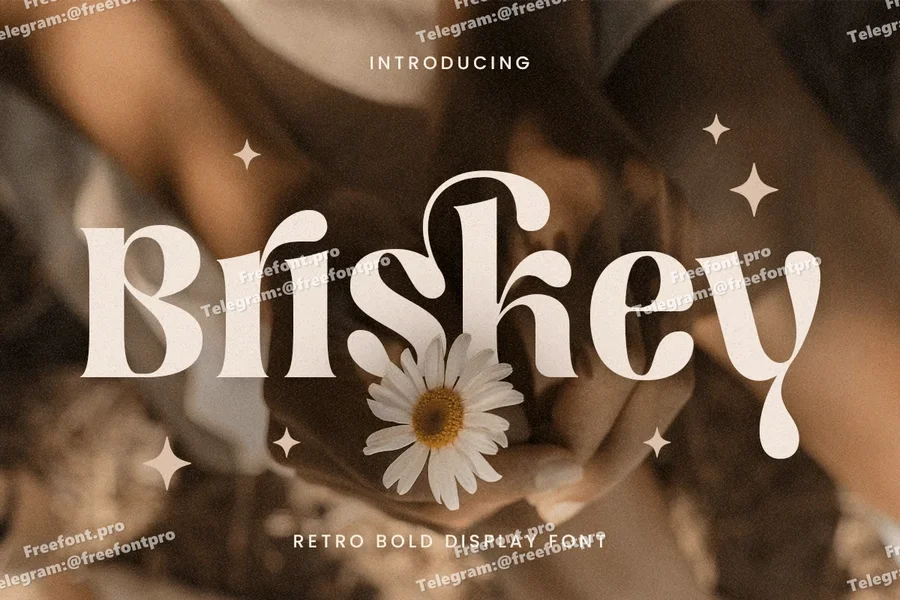
Briskey – Retro Bold Display Font
BRISKEY is a retro bold display font that combines vintage charm with a bold, modern twist. With its eye-catching letterforms and striking presence, BRISKEY is perfect for making a statement in logos, branding, posters, headlines, and creative projects that need a bit of retro flair.
Inspired by the bold typography of past decades, BRISKEY brings a playful yet powerful design that evokes nostalgia while keeping a contemporary edge. Whether you’re working on a retro-themed logo, vintage packaging, or a fun poster, this font is sure to capture attention and leave a lasting impression.
BRISKEY – Retro Bold Display Font Features
Bold, vintage-inspired letterforms with a modern twist
Ideal for logos, posters, branding, and headlines
Includes uppercase, lowercase, numerals, and punctuation
Playful, creative design with strong visual impact
OpenType features for advanced typographic styling